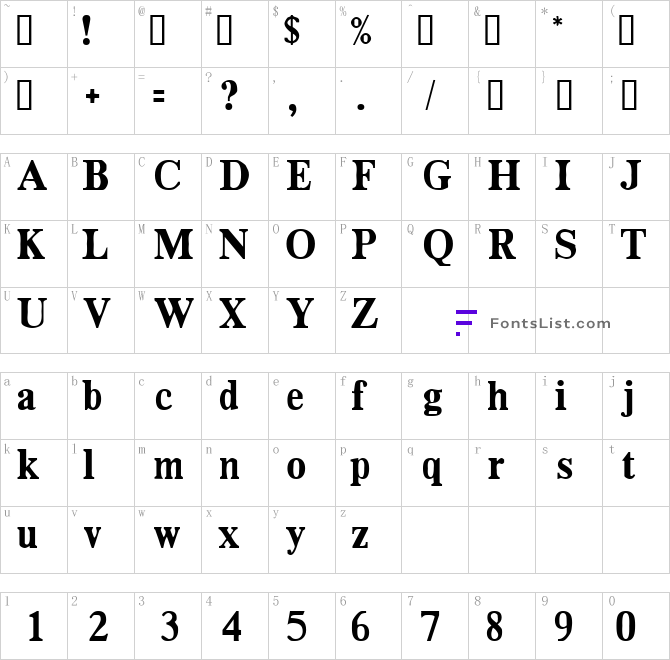
- Font Name:DailyPlanet
DailyPlanet-Black.ttf is a very beautiful artistic font, DailyPlanet-Black.ttf is widely used in the design and printing of various books and pictures,DailyPlanet-Black.ttf has a strong visual impact,DailyPlanet-Black.ttf is a commonly used font in newspapers, magazines and books, and is used in posters, e-commerce Poster design, store design, logo design, font design and other fields.DailyPlanet-Black.